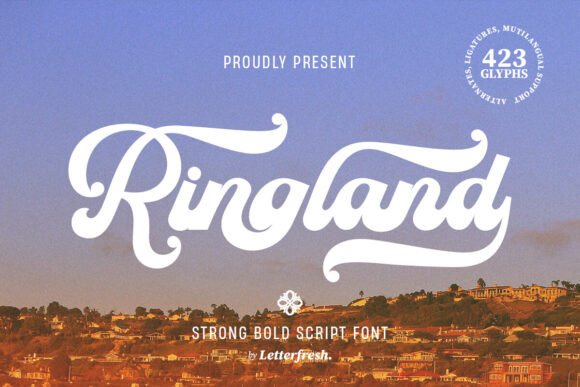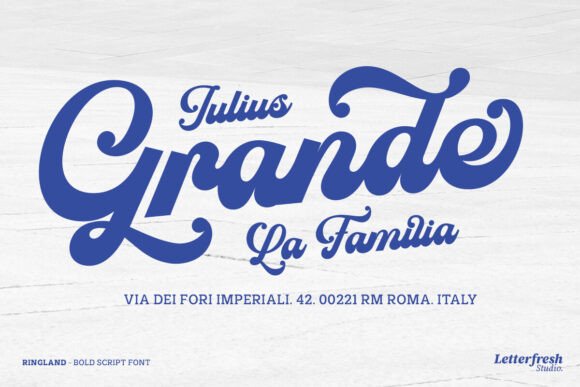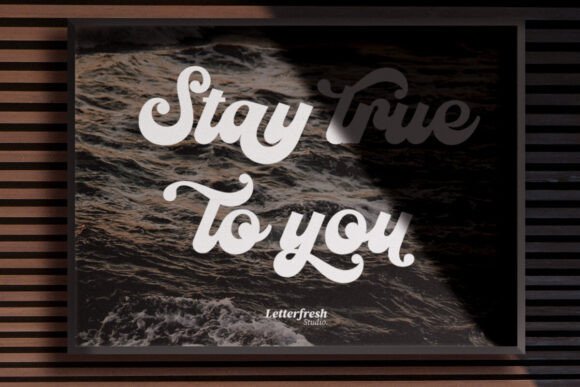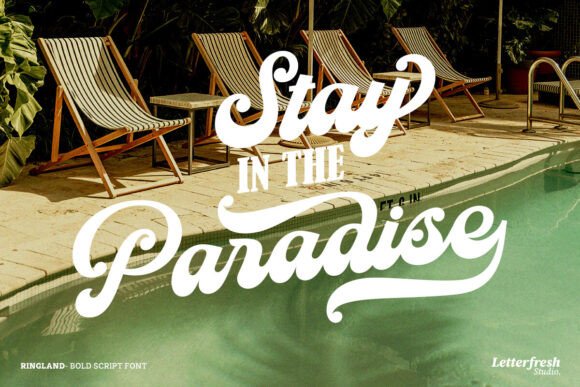
Ringland Script Font
About the Ringland Script Font
Get ready to be inspired by Ringland Script Font, a fresh and dynamic typeface for modern creators. Ringland is a sophisticated and timeless script font, perfect for adding a touch of refinement to projects such as brand identities, elegant invitations, product labels, apparel designs, and more.
With unique stylistic alternates and ligatures integrated into its OpenType features, this font offers incredible flexibility and creative freedom for any design.
Ringland’s elegant, yet slightly playful personality makes it ideal for projects requiring a touch of sophistication but not excessive formality. It excels in headlines, short-form text on packaging, and logos where its refined curves command attention. Avoid using Ringland for large bodies of text or UI elements; its intricate details can become visually overwhelming in smaller sizes or continuous paragraphs.
Pairing Ringland effectively requires considering its inherent grace. A clean sans-serif like Lato or Open Sans provides a strong contrast, offering readability for supporting text. For a more traditional feel, a serif such as Merriweather or Playfair Display complements its refined curves without competing for attention.
Consider Ringland for brands emphasizing luxury, craftsmanship, or a classic aesthetic. It’s a strong choice for wedding invitations, high-end product packaging, or boutique branding where visual appeal is paramount.
Ringland Script Font Usage Examples
Ringland Script Font Example